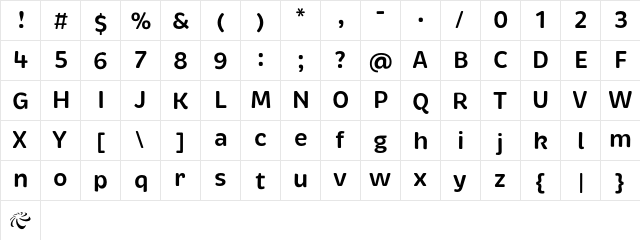
Brevia Semibold Regular
| Foundry | Hannes von Dn |
| Designer | Hannes von Dn |
Design Context for Brevia Semibold Typeface
Brevia Semibold takes a measured approach to typography — its balanced proportions and neutral character make it a reliable workhorse for both digital and print work. The heavy weight commands attention and anchors typographic hierarchies.